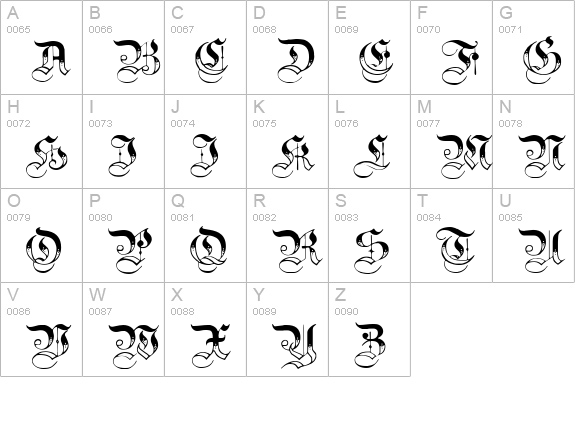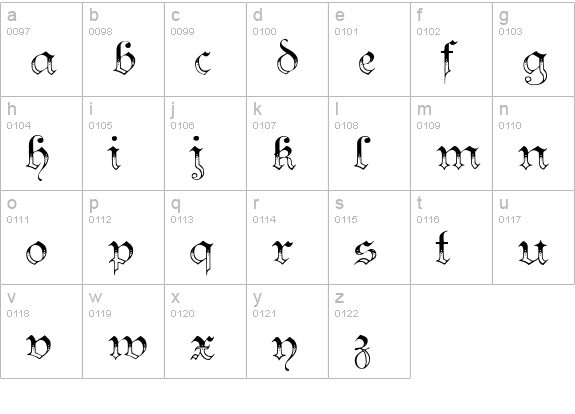
Teutonic No3 DemiBold Font Details
Teutonic No3 DemiBold is a sub-bold, structured variant in the Teutonic typeface family \xE2\x80\x94 well suited to sub-headlines and emphasised passages.
Teutonic No3 DemiBold is a bold and commanding typeface that exudes strength and elegance. Its clean lines and sturdy serifs make it perfect for headlines, titles, and branding projects that require a strong and confident presence. The robust characteristics of this font make it ideal for conveying a sense of authority and reliability. What sets Teutonic No3 DemiBold apart is its versatility - it can effortlessly transition from traditional to modern designs while maintaining its distinct personality. Whether you're working on a print ad, website design, or packaging project, this font will make a lasting impact. Best of all, Teutonic No3 DemiBold is free to download at FontsMarket.com. Take advantage of this opportunity to enhance your projects with a font that combines strength and sophistication in a unique way. Elevate your designs with the powerful presence of Teutonic No3 DemiBold today.